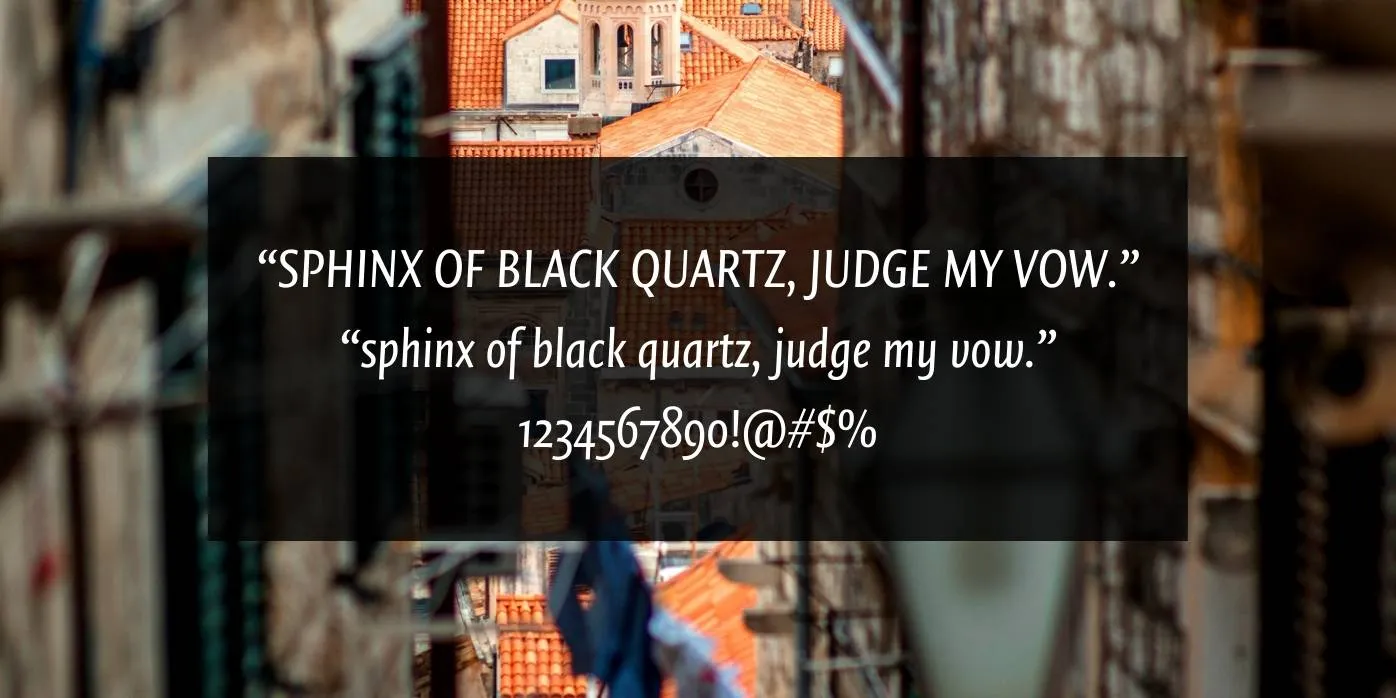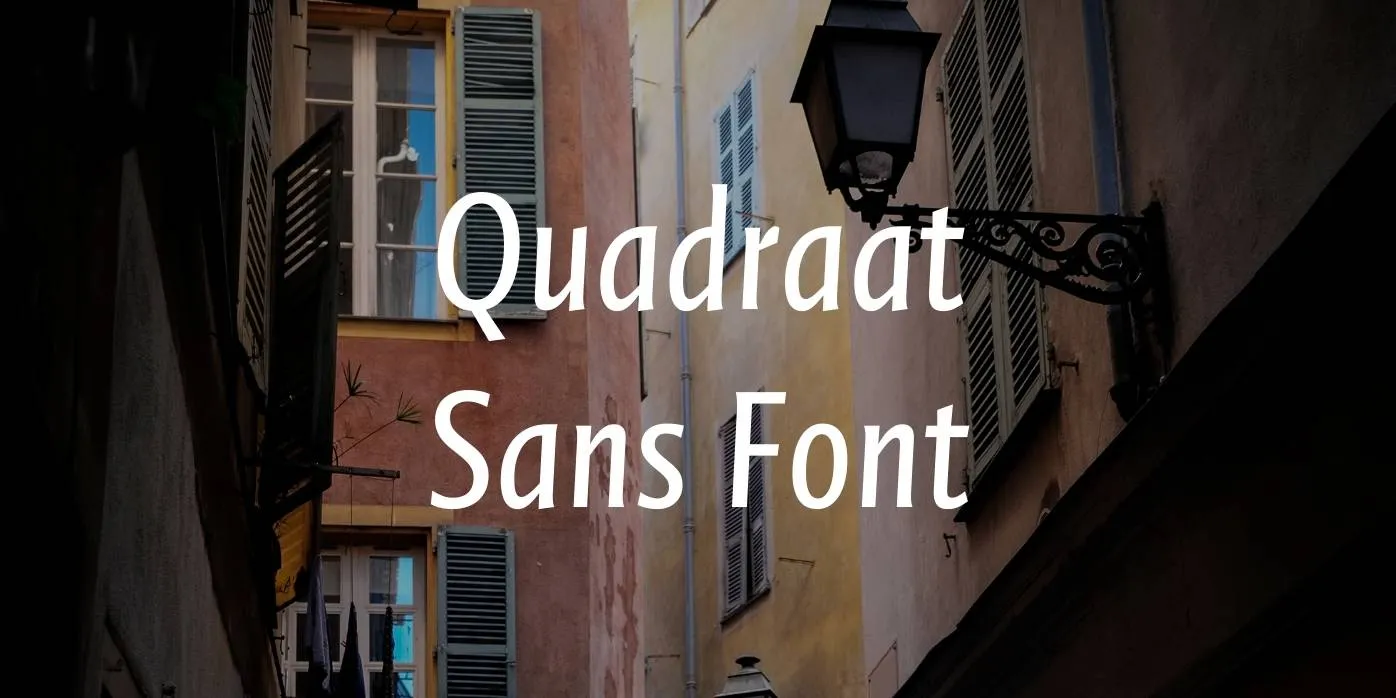
Quadraat Sans Font
Quadraat Sans Font is a very famous and stunning typeface that belongs to the sans serif typeface. This cozy typeface was developed by Fred Smeijers. The main aim of this typeface is to give a legible look and it was first released in 2006. This sans serif typeface is available in various styles like Regular, Italic, Bold, and Bold Italic.
This awesome font has a very unique and special appearance. The letters of this font are very thin and have a tall x-height. The lowercase letters of this font have ascenders and descenders. Quadraat Sans Font also has some interesting features like small caps, old-style figures, fractions, and superiors & inferiors.